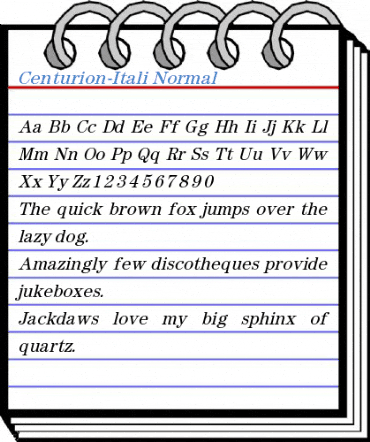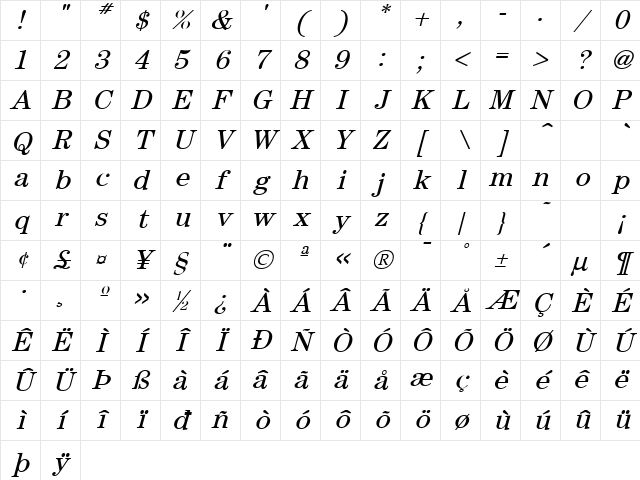
Centurion-Itali Normal
Design Context for Centurion-Itali
Centurion-Itali is a composed and adaptable typeface that performs quietly and consistently across a wide range of design contexts.
Pro Tip: Use Centurion-Itali in both headline and body roles to test its range before committing to a single application.